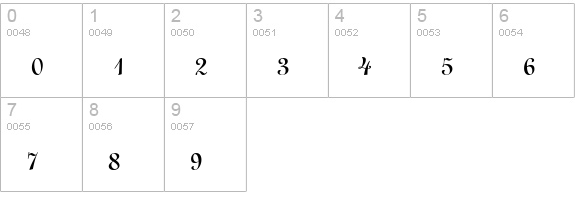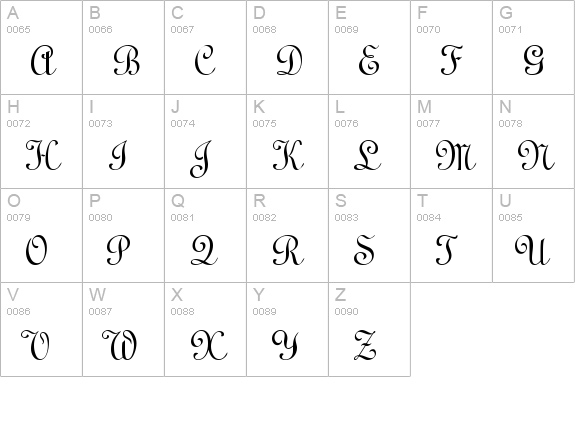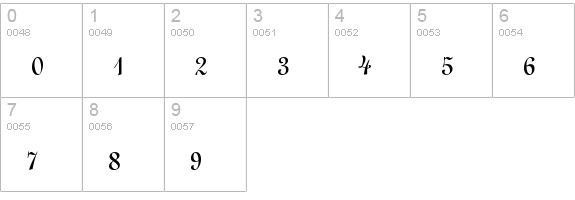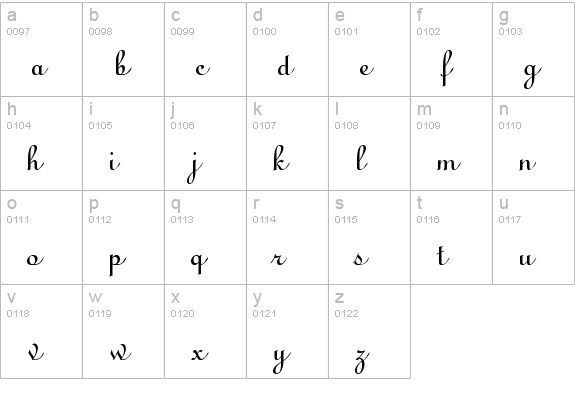
L730-Script-Regular Font Details
L730-Script-Regular is the standard, neutral variant in the L730 typeface family \xE2\x80\x94 well suited to general body text, paragraphs, and standard typographic work.
L730 Script Regular font is a beautifully crafted typeface that exudes elegance and sophistication. With its flowing script style, this font is perfect for adding a touch of whimsy and charm to any design project. Whether you're working on invitations, branding materials, or any other creative endeavor, L730 Script Regular is sure to make a statement. What makes this font even more appealing is that it is available for free download at FontsMarket.com. That's right, you can enhance your designs with this stunning font without having to spend a penny. So why wait? Head over to FontsMarket.com now and start using L730 Script Regular to take your projects to the next level.